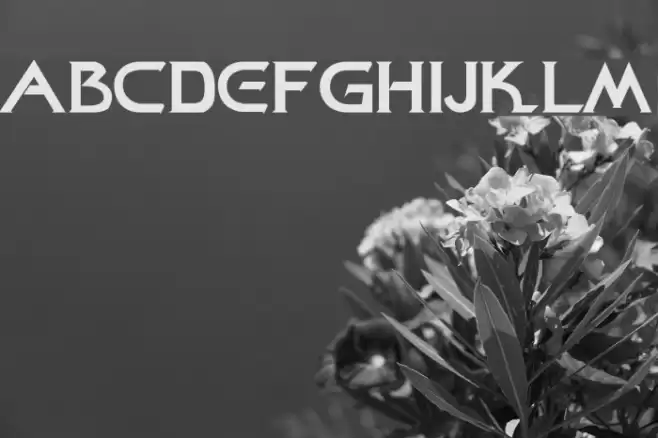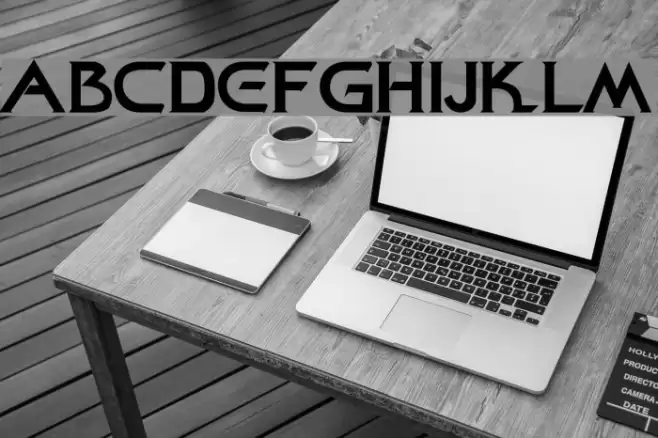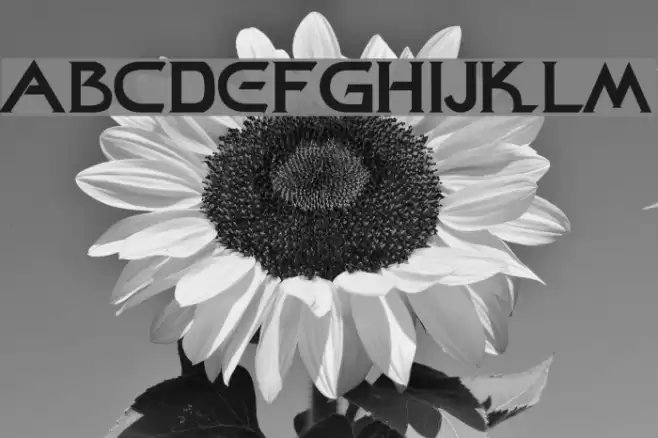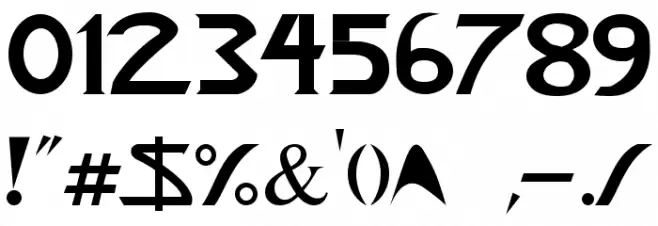
Star-Title Font
Star-Title Description
This font features a futuristic and angular design, characterized by sharp edges and geometric shapes. The uppercase letters are bold and dynamic, with a unique style that suggests movement and modernity. The lowercase letters maintain the same angular theme, offering a cohesive look throughout. Numbers are equally bold, with a distinct presence that makes them stand out. Special characters are creatively designed, adding to the font's overall futuristic appeal. This font is perfect for projects that require a modern and edgy look, such as sci-fi themed designs or innovative branding.
A futuristic, angular font with bold, geometric shapes from Uncategorized fonts.
- Proposed Projects: Ideal for sci-fi themed designs, modern branding, and innovative product packaging.